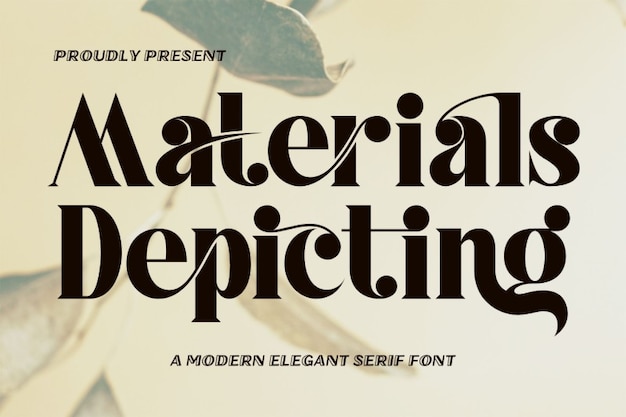
Materials Depicting Font
"Materials Depicting" is an elegant, modern font characterized by its elongated ligatures and sleek, flowing design. Its refined curves and sophisticated structure make it ideal for high-end branding, editorial projects, or luxury design. This font adds a touch of class and timeless style, seamlessly blending contemporary flair with graceful elegance.